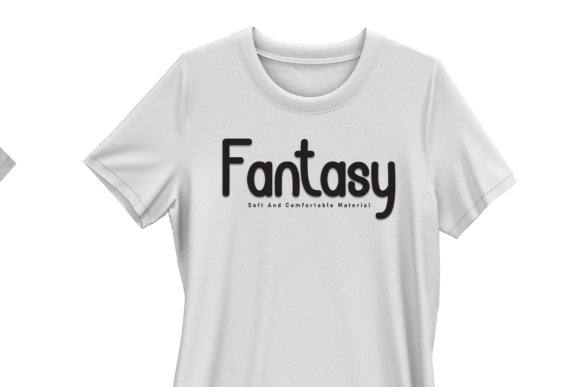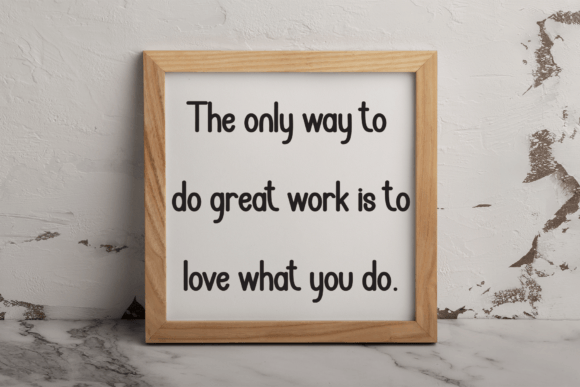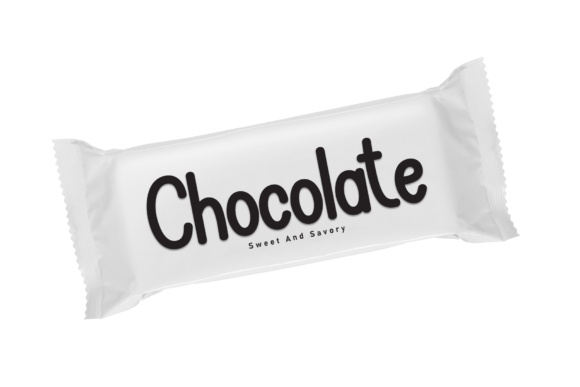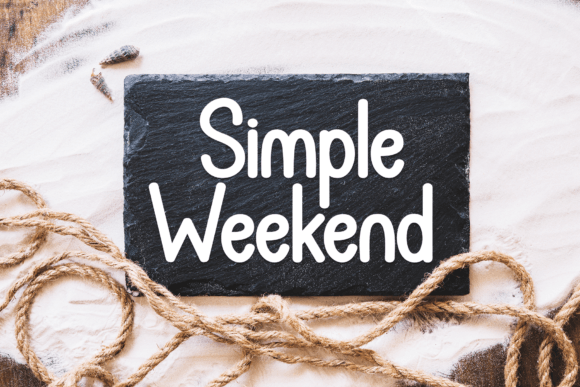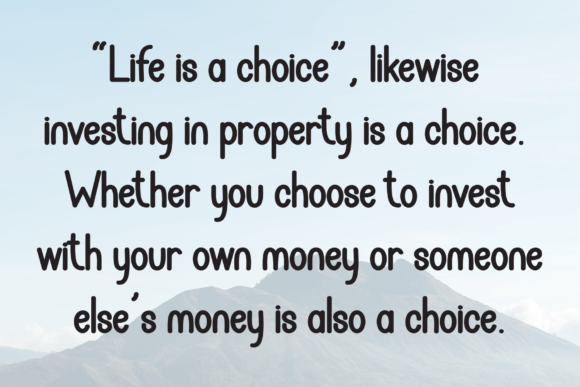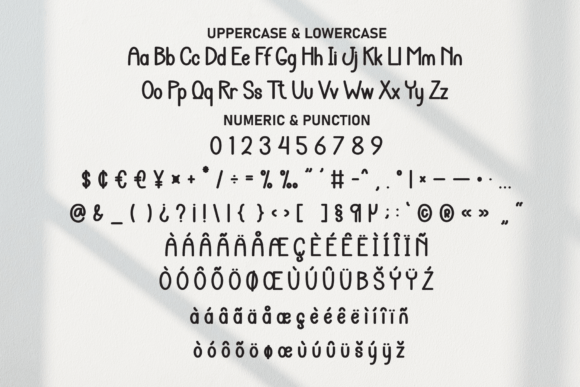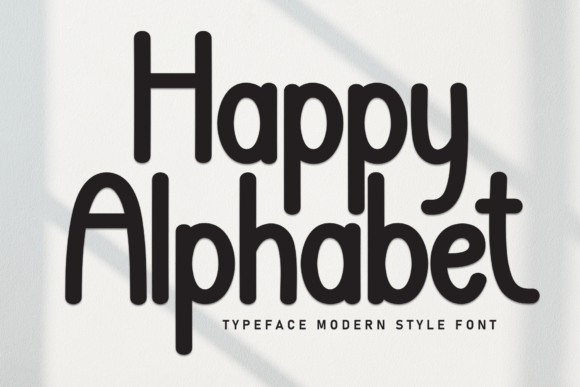
Introducing Happy Alphabet Font: The Perfect Addition to Your Design Projects
Are you tired of using the same old boring fonts in your design projects? Look no further than the Happy Alphabet Font! This cheerful and playful handwritten font is sure to bring a touch of happiness and whimsy to any project. In this article, we’ll take a closer look at the Happy Alphabet Font, its features, and how you can use it to take your designs to the next level.
What is Happy Alphabet Font?
Happy Alphabet is a cheerful and playful handwritten font that is perfect for adding a personal touch to your designs. Its letters look like they were drawn by hand, giving it a fun and friendly feel that’s hard to resist. This font is ideal for a variety of projects, including children’s books, greeting cards, posters, and any other design that needs a dash of personality.
Key Features of Happy Alphabet Font
- Handwritten style: The Happy Alphabet Font has a beautiful handwritten style that gives it a unique and personal feel.
- Cheerful and playful: This font is designed to bring a smile to people’s faces, making it perfect for projects that need a touch of happiness and whimsy.
- Perfect for kids’ projects: The Happy Alphabet Font is ideal for children’s books, nursery rhymes, and other kids’ projects that require a fun and playful font.
- Multilingual support: This font supports multiple languages, making it a great choice for designers who work on international projects.
Use Cases for Happy Alphabet Font
The Happy Alphabet Font is versatile and can be used in a variety of design projects. Here are some use cases to get you started:
- Children’s books: The Happy Alphabet Font is perfect for illustrating children’s books, making reading more fun and engaging for kids.
- Greeting cards: Add a personal touch to your greeting cards with the Happy Alphabet Font, making them more special and memorable.
- Posters and flyers: Use the Happy Alphabet Font to create eye-catching posters and flyers that grab attention and leave a lasting impression.
- Crafting and DIY projects: The Happy Alphabet Font is also great for crafting and DIY projects, such as scrapbooking, journaling, and handmade cards.
Tips for Using Happy Alphabet Font
Here are some tips to help you get the most out of the Happy Alphabet Font:
- Mix and match: Experiment with different font sizes, colors, and styles to create a unique look that suits your project.
- Add embellishments: Use the Happy Alphabet Font in combination with embellishments, such as stickers, stamps, and illustrations, to add visual interest to your design.
- Keep it simple: Don’t be afraid to keep things simple and use the Happy Alphabet Font as a standalone font to let its playful style shine.
The Happy Alphabet Font is a versatile and fun font that’s perfect for designers and crafters looking to add a touch of happiness and whimsy to their projects. With its handwritten style, cheerful and playful vibe, and multilingual support, this font is sure to become a favorite in your design arsenal. So why not give it a try and see how it can elevate your designs to the next level?